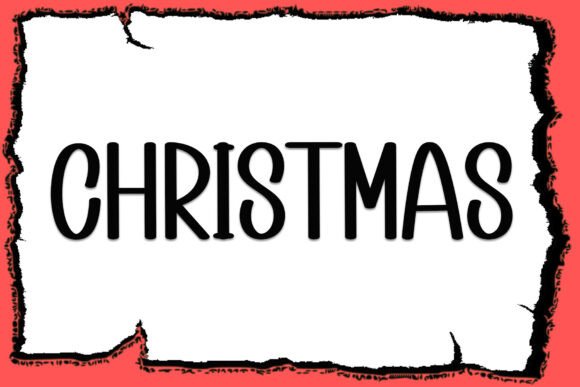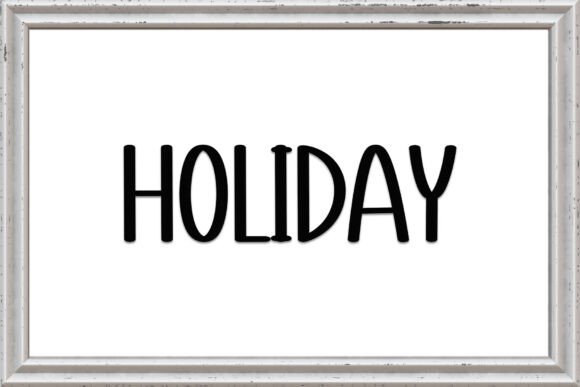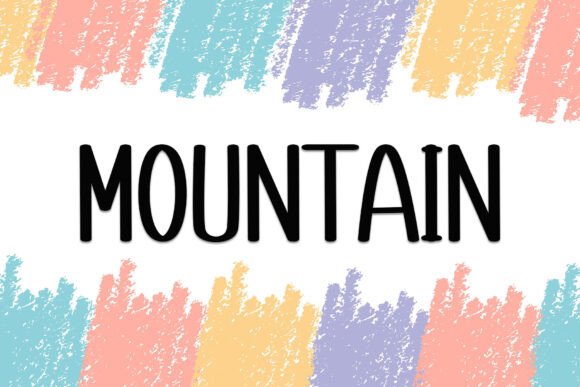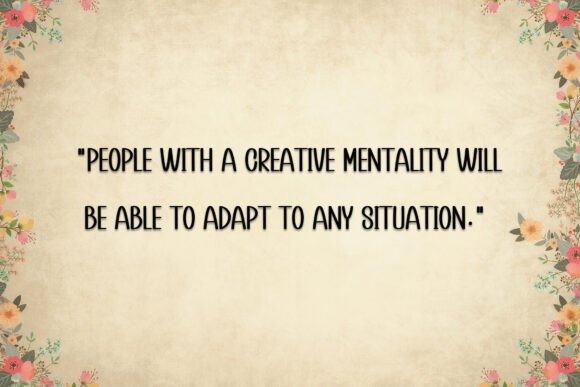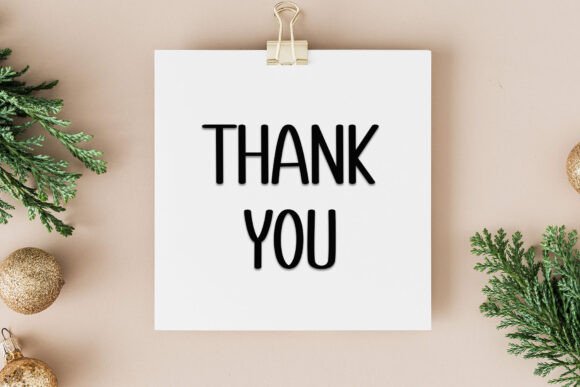
Introducing Autism Awareness Font: A Festive and Happy Typeface for Your Holiday Designs
As the holiday season approaches, designers and crafters are on the lookout for unique and eye-catching typography to make their projects stand out. If you’re looking for a font that embodies the spirit of the holidays, look no further than the Autism Awareness Font. This delightful typeface is perfect for adding a touch of charm and whimsy to your designs, making it an ideal choice for greeting cards, gift labels, and holiday-themed projects.
A Festive and Happy Typeface
The Autism Awareness Font is a decorative typeface that exudes a sense of joy and festivity. Its unique design elements and flair are sure to bring a cheerful and nostalgic atmosphere to your words. Whether you’re creating holiday-themed crafts, decorations, or digital designs, this font is sure to add a touch of magic to your projects.
The Autism Awareness Font is a versatile typeface that’s perfect for a wide range of design applications. Whether you’re a professional designer or a crafter, this font is easy to use and can add a touch of personality to your projects. Here are just a few ways you can use the Autism Awareness Font:
- Greeting Cards: Create personalized and festive greeting cards for friends and family with the Autism Awareness Font.
- Gift Labels: Add a touch of charm to your gift labels with this delightful typeface.
- Holiday-themed Projects: Use the Autism Awareness Font to create festive and eye-catching designs for holiday-themed projects, such as decorations, scrapbooking, and more.
Benefits of Using the Autism Awareness Font
So why choose the Autism Awareness Font for your holiday designs? Here are just a few benefits of using this delightful typeface:
- Unique and Eye-Catching: The Autism Awareness Font is a one-of-a-kind typeface that’s sure to make your designs stand out.
- Easy to Use: With PUA coding, you can access all the amazing glyphs and ligatures easily, making it simple to use and incorporate into your designs.
- Versatile: The Autism Awareness Font is perfect for a wide range of design applications, from greeting cards to holiday-themed projects.
- Festive and Happy: This typeface embodies the spirit of the holiday season, adding a touch of joy and festivity to your designs.
If you’re looking for a font that captures the spirit of the holiday season, look no further than the Autism Awareness Font. With its decorative elements, unique flair, and PUA coding, this typeface is perfect for designers and crafters who want to add a touch of charm and whimsy to their holiday designs. Whether you’re creating greeting cards, gift labels, or holiday-themed projects, the Autism Awareness Font is sure to bring a cheerful and nostalgic atmosphere to your words.